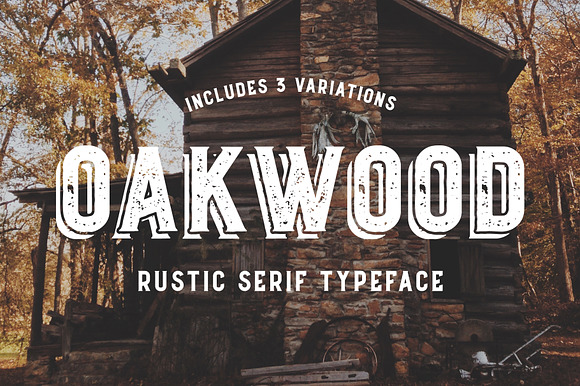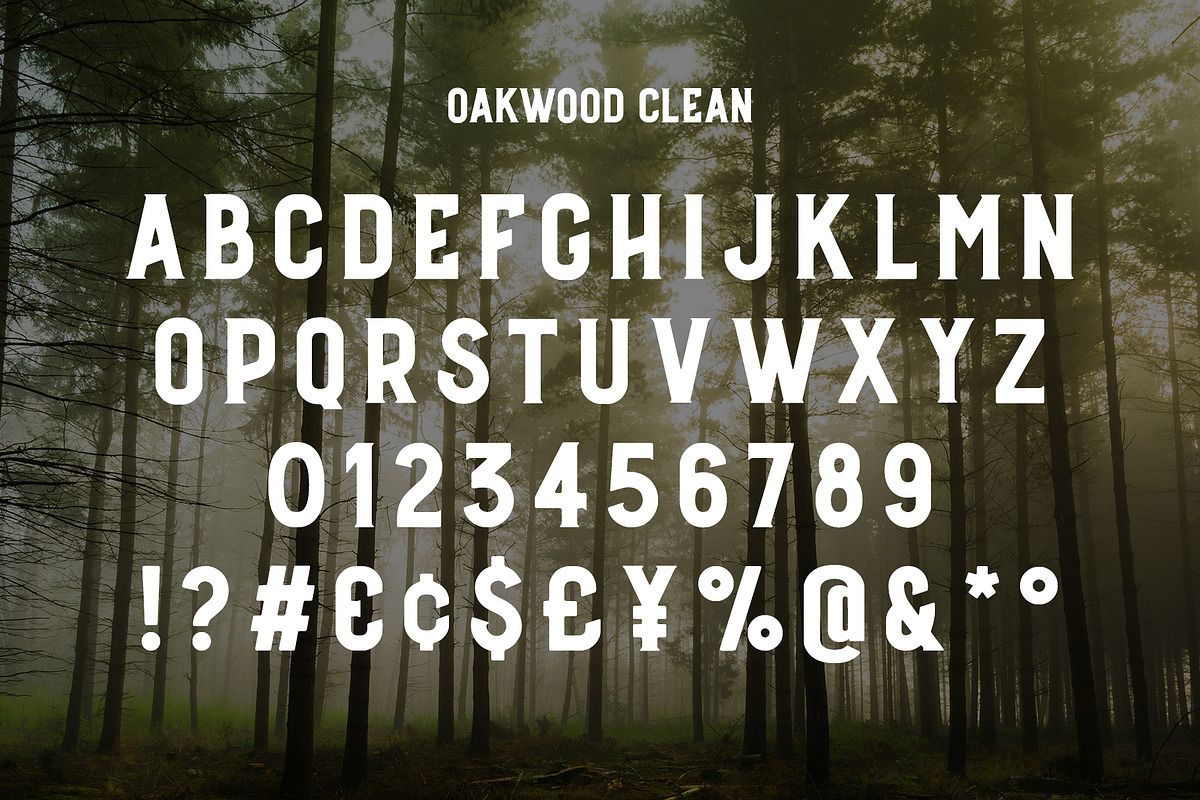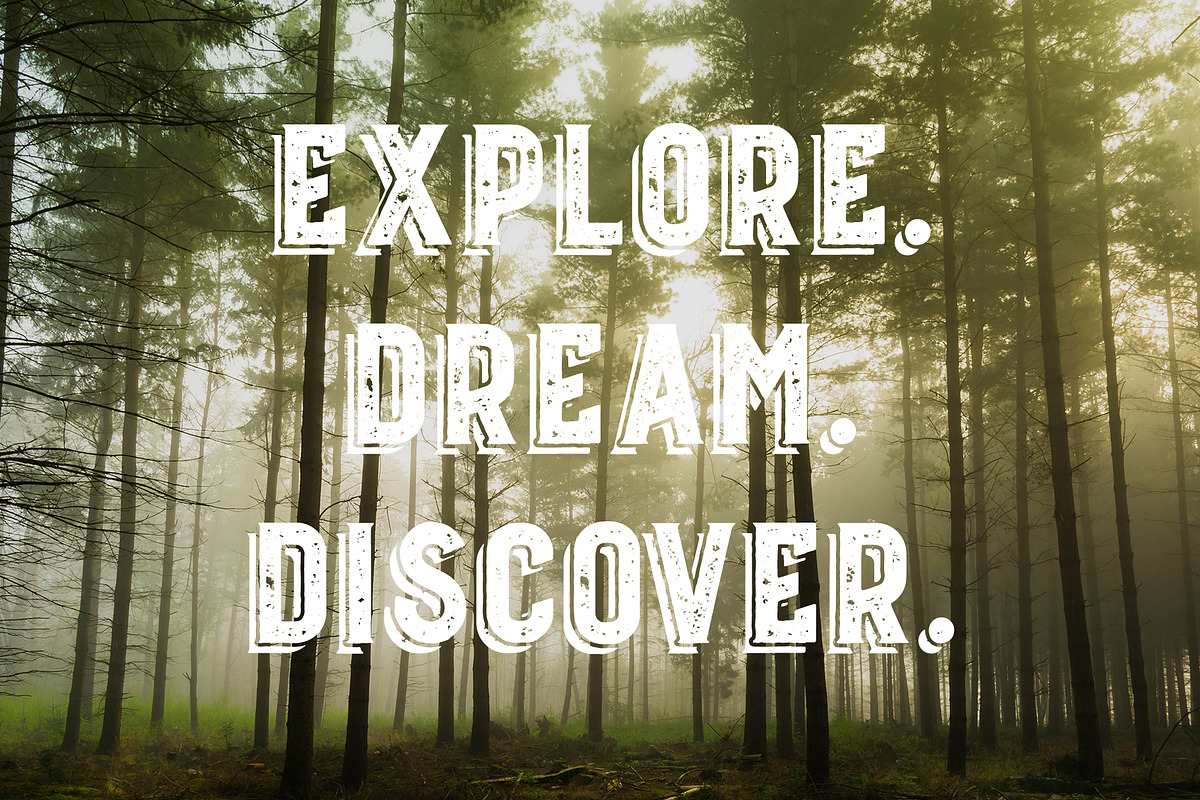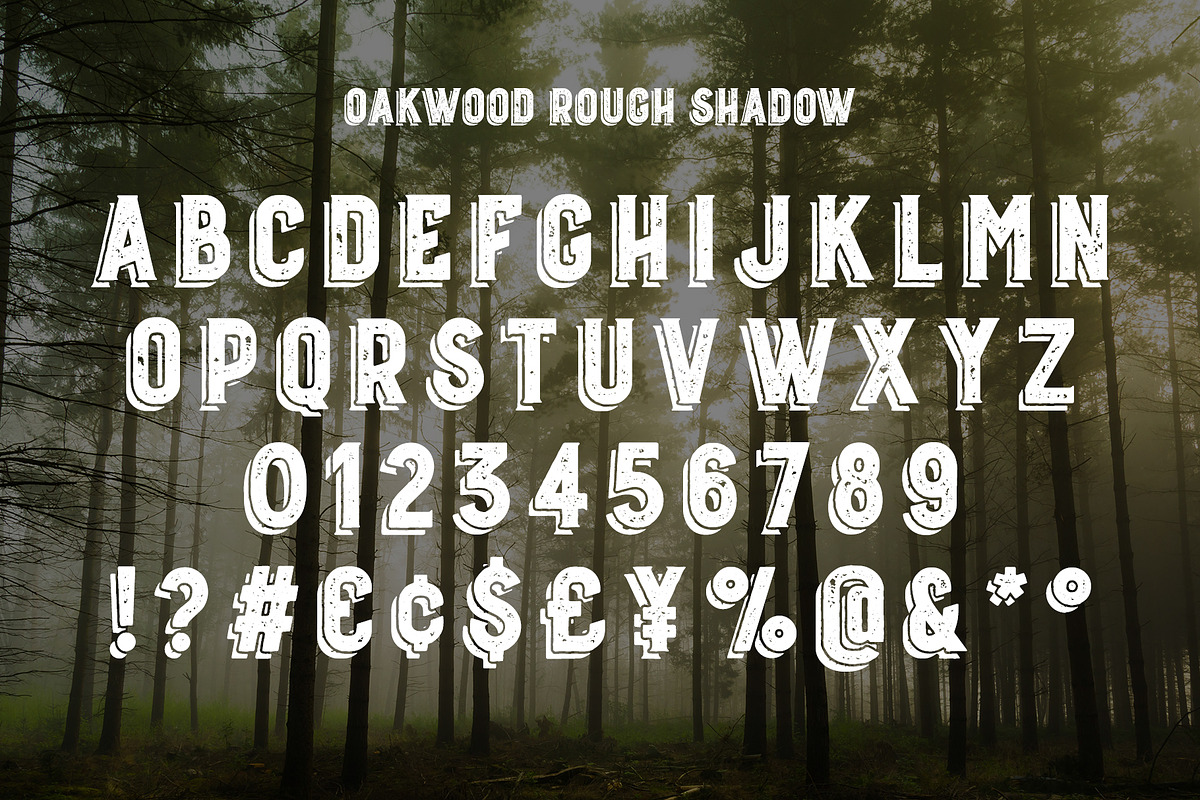
Oakwood - Rustic Font
Oakwood is a new rustic typeface with plenty of character, it features subtle serifs and angled crossbars. Oakwood comes in 3 different distinct styles; Clean, Rough and Rough Shadow. This font is perfect for outdoors and nature themed projects.
Oakwood is an all caps font that includes:
All uppercase letters
Most common symbols and punctuation
Some European language support (please see the preview images)
- Oakwood Clean
- Oakwood Rough
- Oakwood Rough Shadow